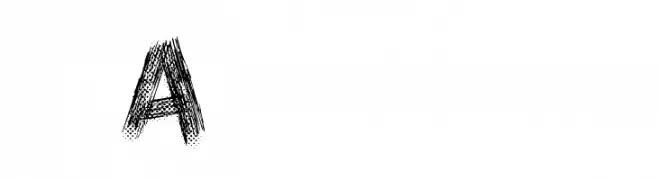
A bold, cursive font with smooth, flowing lines and a dynamic appearance.
A playful and elegant script font with flowing, ornate characters.
A playful, bold typeface with rounded, bubbly characters ideal for fun designs.
A bold, rounded font with a playful and modern aesthetic.
A playful, bold font with thick, rounded strokes and a whimsical touch.
A playful, rounded font with a casual, handwritten style.
A playful, hand-drawn font with bold, irregular characters.
A playful, bold handwritten font with rounded edges and thick strokes.
A bold, retro-style font with a 3D shadow effect.
A playful, bubbly font with a hand-drawn, dynamic style.
A playful, bold font with rounded, dripping characters.
A playful, bold, hand-drawn font with a cartoon-like style.
A bold, cursive font with dynamic curves and a shadow effect for added depth.
A bold, playful font with a 3D shadow effect, perfect for dynamic and fun designs.
A bold, playful script font with a hand-lettered calligraphy style.
An elegant and flowing script font with graceful curves and loops.
An elegant, flowing script font with graceful curves and sophisticated swashes.
A playful, hand-drawn font with rounded, bold characters.
A flowing, cursive font with elegant and interconnected letters.
An elegant script font with flowing cursive style and intricate swashes.
An elegant script font with flowing, cursive characters and decorative flair.
A bold, expressive handwritten font with thick, flowing strokes.
A bold, hand-painted style font with expressive, uneven edges.
A bold, hand-painted style font with dynamic, brush-like strokes.
A bold, playful handwritten font with smooth, rounded edges.
A playful, bold font with rounded, thick strokes and a friendly appearance.
A playful, hand-drawn font with a bold, rounded style.
A playful, handwritten script font with bold uppercase and fluid lowercase letters.
A bold, geometric font with rounded edges and a playful style.